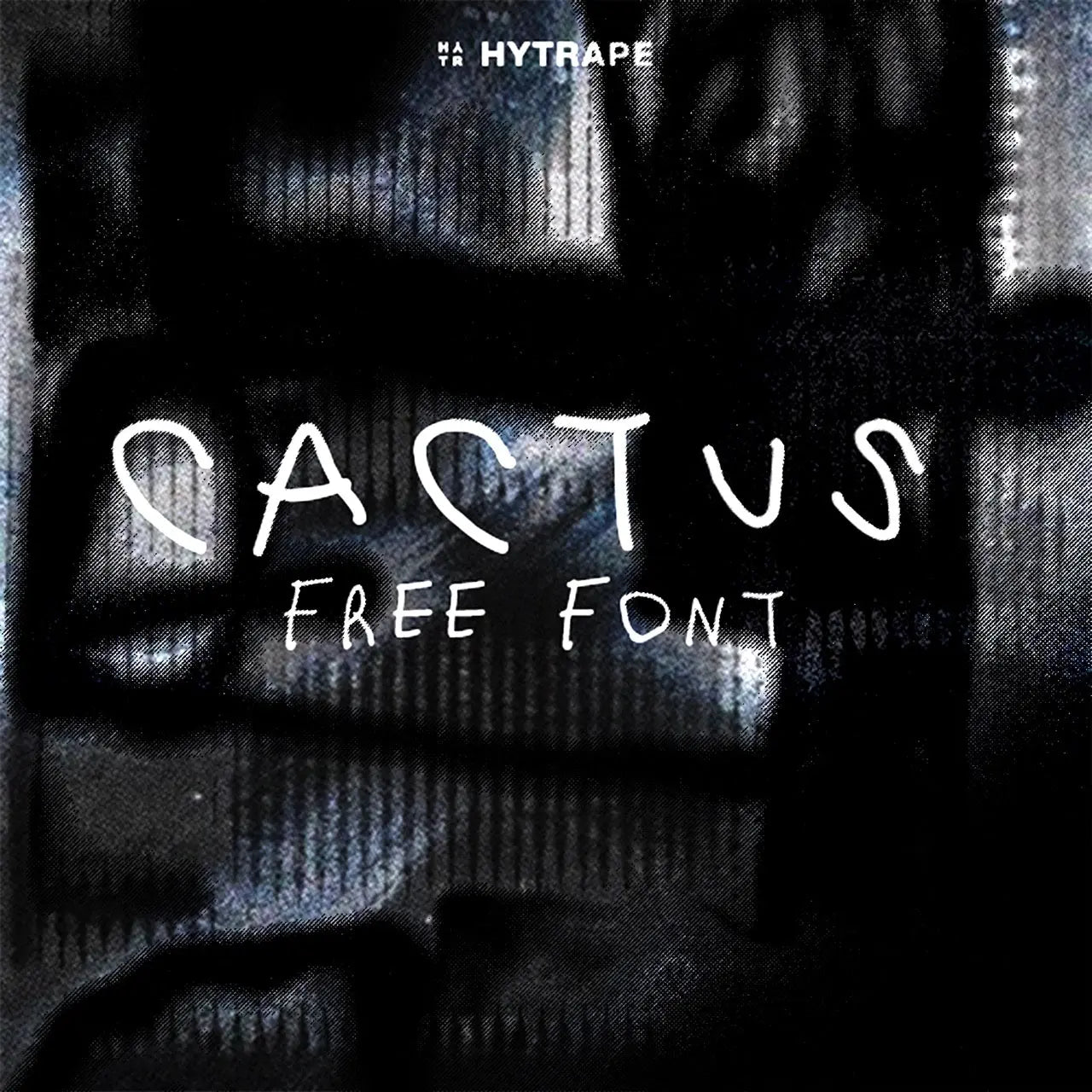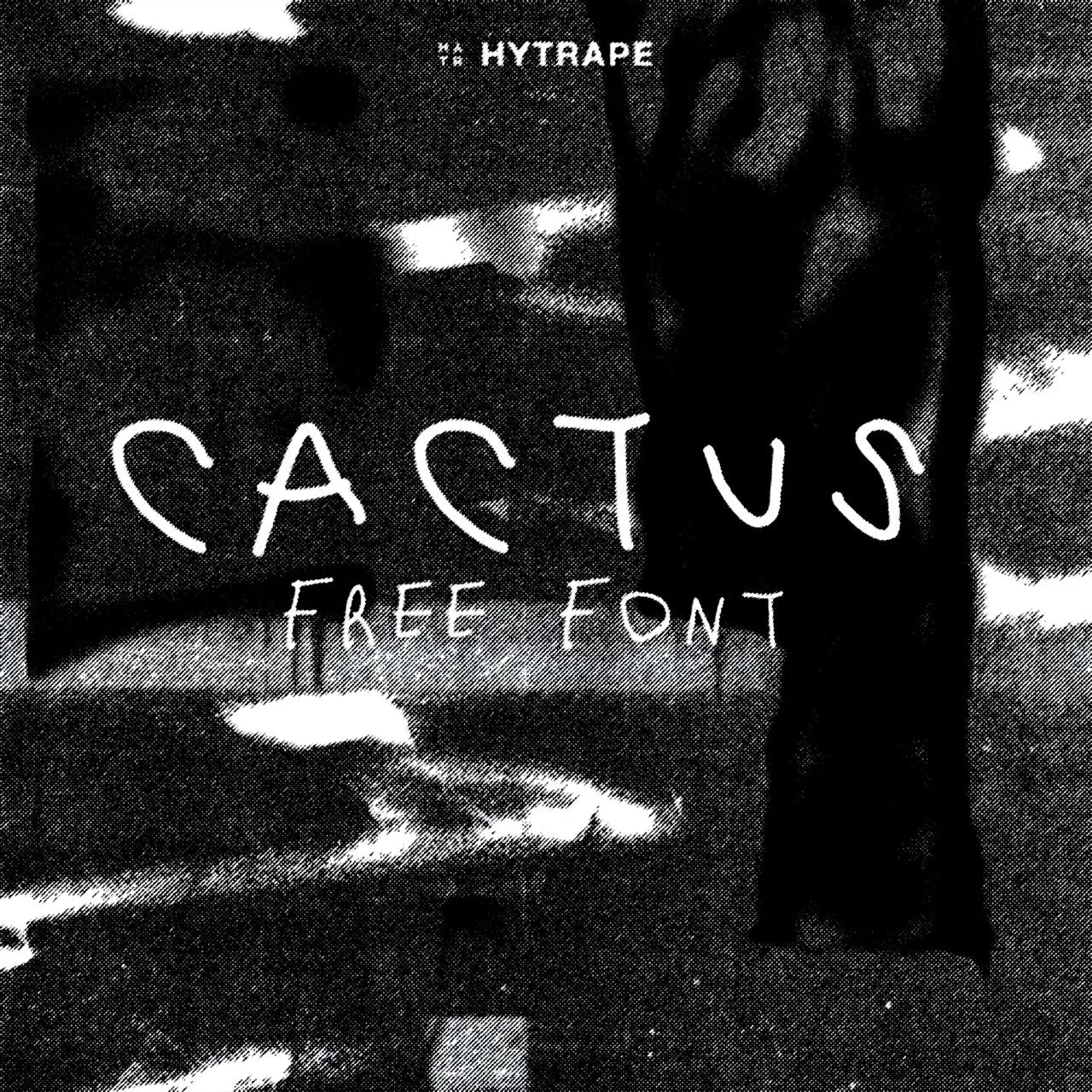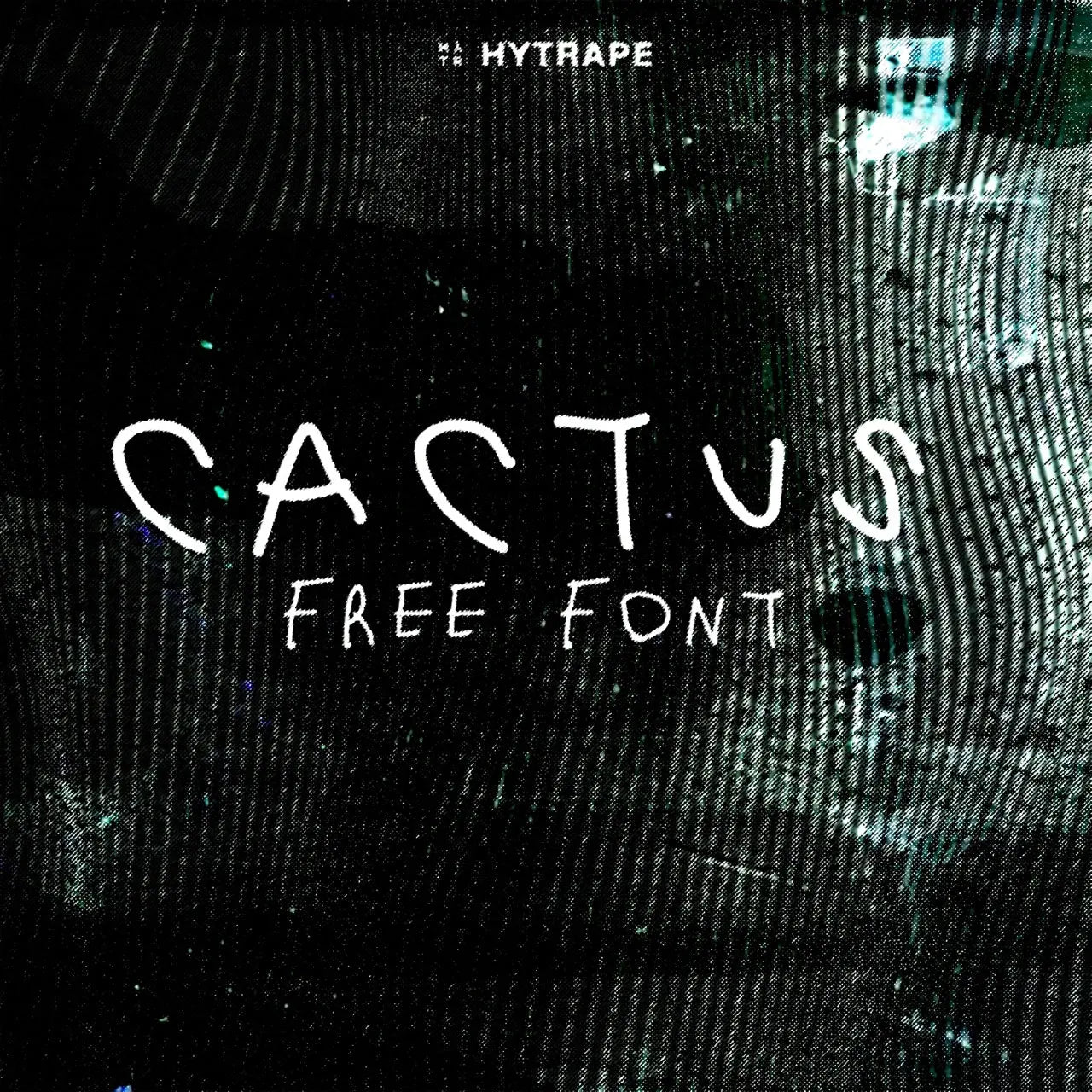
Cactus is a thin, irregular font close to handwriting, in capitals. For light headlines, labels and raw-toned visuals.
CACTUS FONT (FREE) is an experimental font designed for professionals looking for unique and original typography. Use it legally for your personal projects.Customer reviews